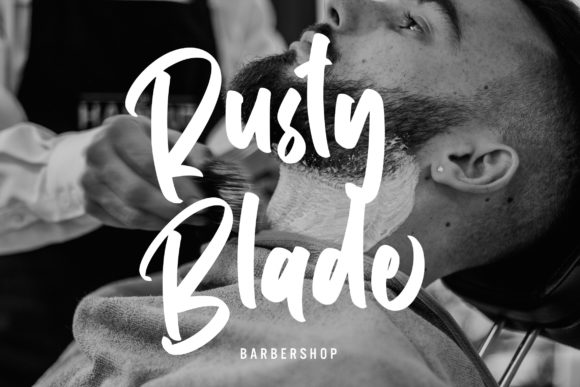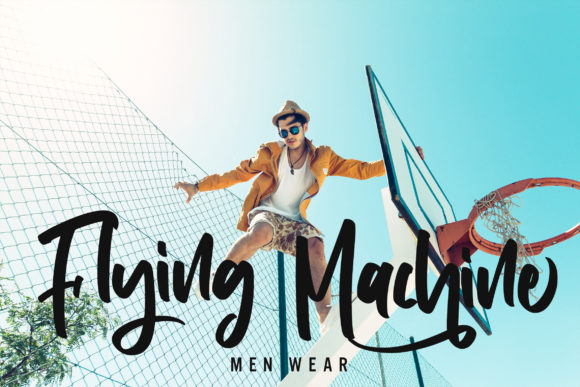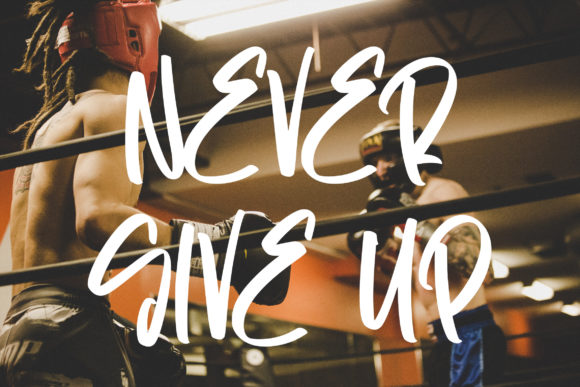
Introduction to Shohibul Font
Shohibul is a bouncy and quirky handwritten font.
It will add a fresh and contemporary touch to your designs Add this unique display font to each of your creative ideas and notice how it makes them stand out.
Shohibul Font offers exceptional quality and versatility, making it a valuable addition to your design toolkit. Whether you’re creating for personal projects or commercial use, Shohibul Font delivers professional results.